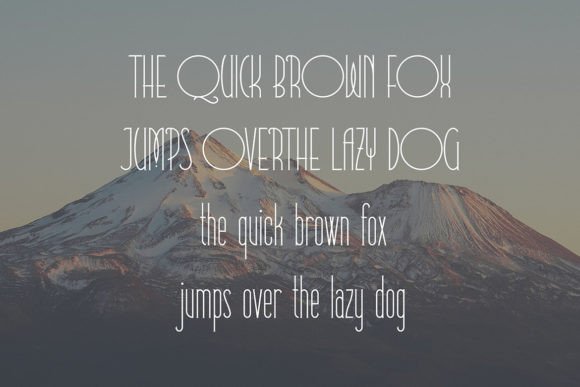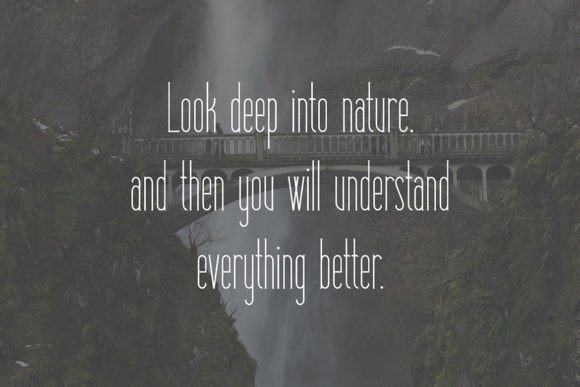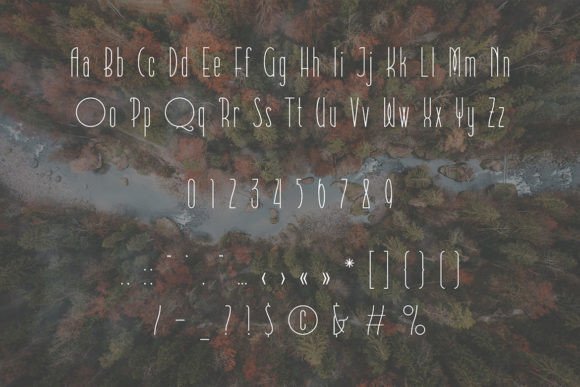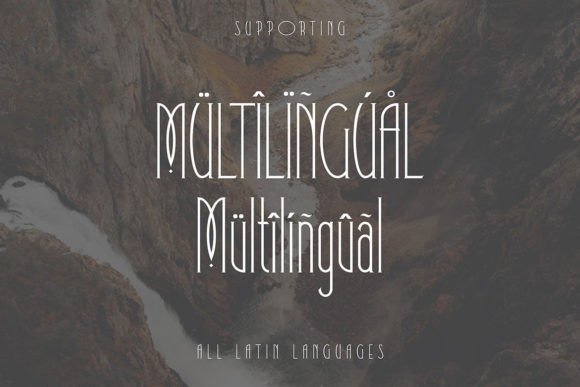
Unveiling the Elegance of Atlantis Font: A Symbol of Exclusivity and Style
In the vast universe of typography, where fonts are the silent ambassadors of brand identity, Atlantis Font emerges as a beacon of sophistication and elegance. This exquisite typeface is not just a font; it’s an experience, a statement of luxury and refinement that speaks volumes about the discerning taste of its users. Designed with a keen eye for detail and an unwavering commitment to aesthetics, Atlantis Font is the epitome of exclusivity and style, making it the go-to choice for designers and crafters aiming to leave an indelible mark.
The Essence of Atlantis Font
At the heart of Atlantis Font lies its condensed design, a feature that sets it apart in the crowded realm of typography. This sleek and compact structure allows for a powerful visual impact, making it perfect for projects where space is of the essence, yet the message needs to be loud and clear. Whether it’s bold statements in advertising, editorial layouts that demand sophistication, or high-end branding that seeks to convey luxury and exclusivity, Atlantis Font proves to be an invaluable asset.
Modern Appeal Meets Timeless Elegance
Atlantis Font strikes a delicate balance between modern appeal and timeless elegance. Its sleek lines and unique features infuse a sense of freshness and dynamism, aligning perfectly with contemporary design trends. Yet, the font’s classic undertones ensure that it remains relevant and stylish across various platforms and mediums, from digital interfaces to print materials. This versatility is a testament to its enduring charm and the creative possibilities it unlocks.
Crafting Bold Statements
For designers and crafters, the quest for a font that can help their work stand out is perpetual. Atlantis Font rises to this challenge with aplomb, offering a distinctive character that commands attention and respect. Its use in advertising can elevate a brand’s message, making it more compelling and memorable. In editorial layouts, it adds a layer of sophistication, enhancing the reader’s experience. For high-end branding, it serves as a seal of excellence, symbolizing a commitment to quality and style.
Why Choose Atlantis Font?
The decision to choose Atlantis Font over other typefaces can be attributed to several key factors:
- Exclusivity: Its unique design ensures that your projects stand out, exuding an air of exclusivity.
- Versatility: Suitable for a wide range of applications, from digital to print.
- Modernity: Strikes the perfect balance between being contemporary and timeless.
- Aesthetic Appeal: Enhances the visual appeal of any project, making it more engaging.
Atlantis Font is more than just a typeface; it’s a design statement that speaks to those who value elegance, exclusivity, and style. Its condensed design, modern appeal, and sleek lines make it an indispensable tool for designers and crafters looking to make a bold impact. Whether you’re working on a high-end brand campaign, an editorial piece, or any project that demands the best, Atlantis Font is your gateway to creating something truly remarkable. Embrace the luxury of Atlantis Font and let its unique charm elevate your designs to new heights of sophistication and style.